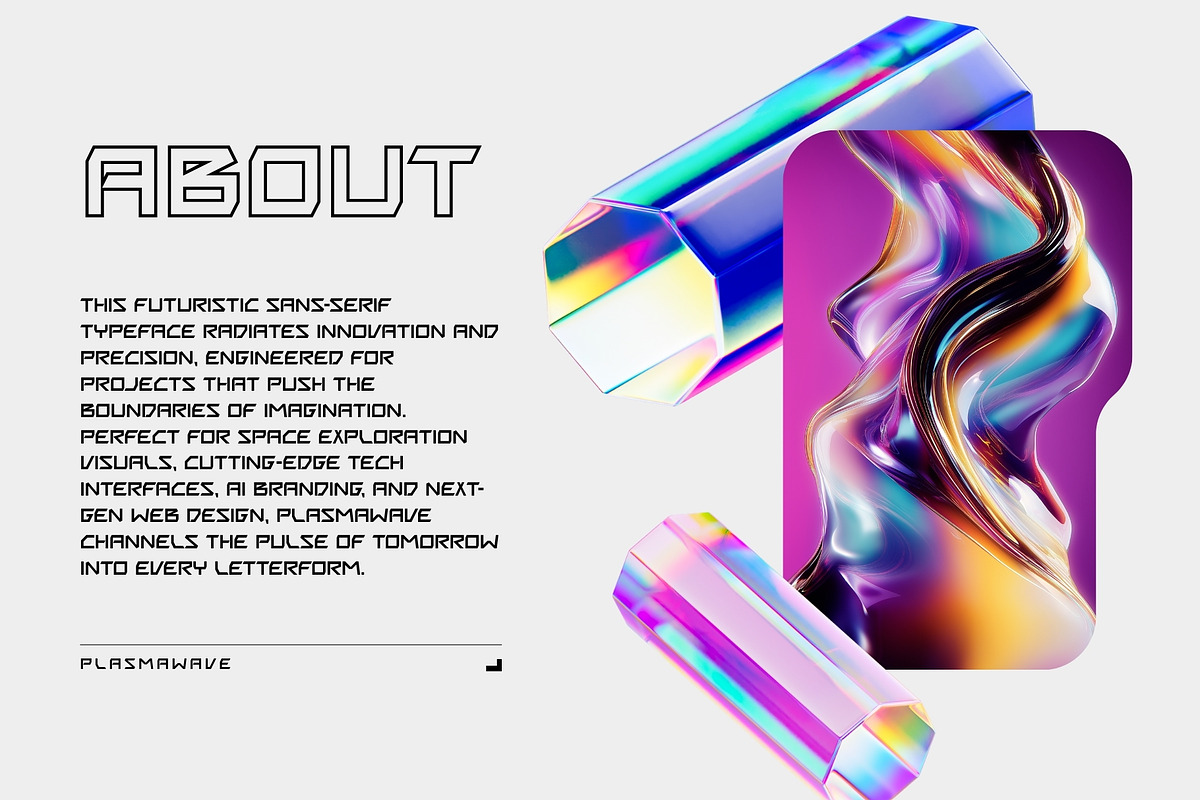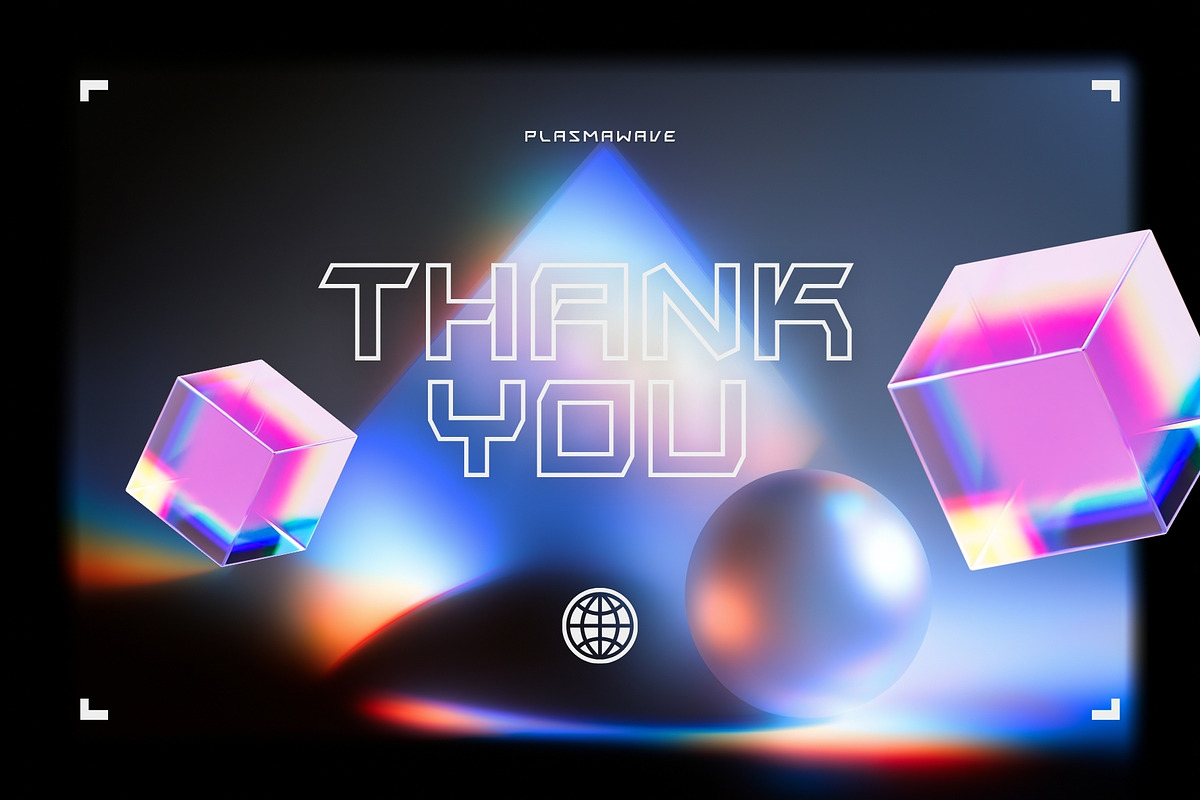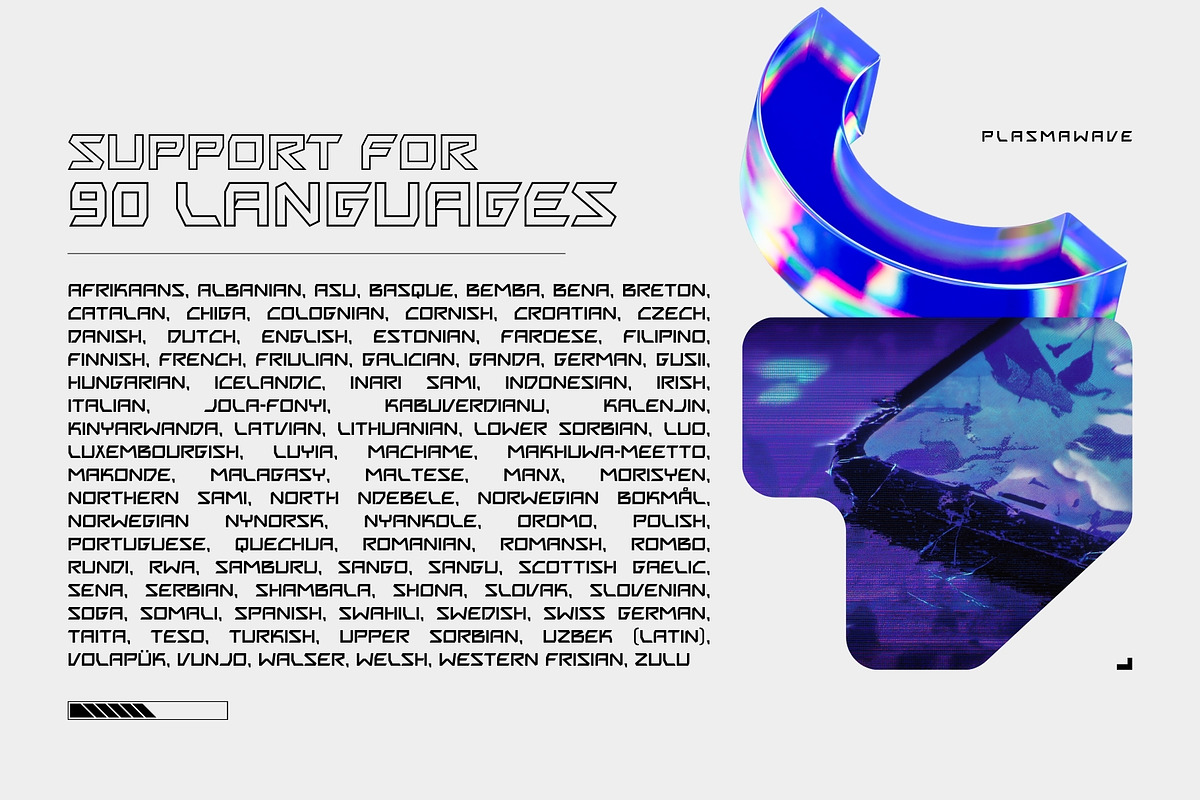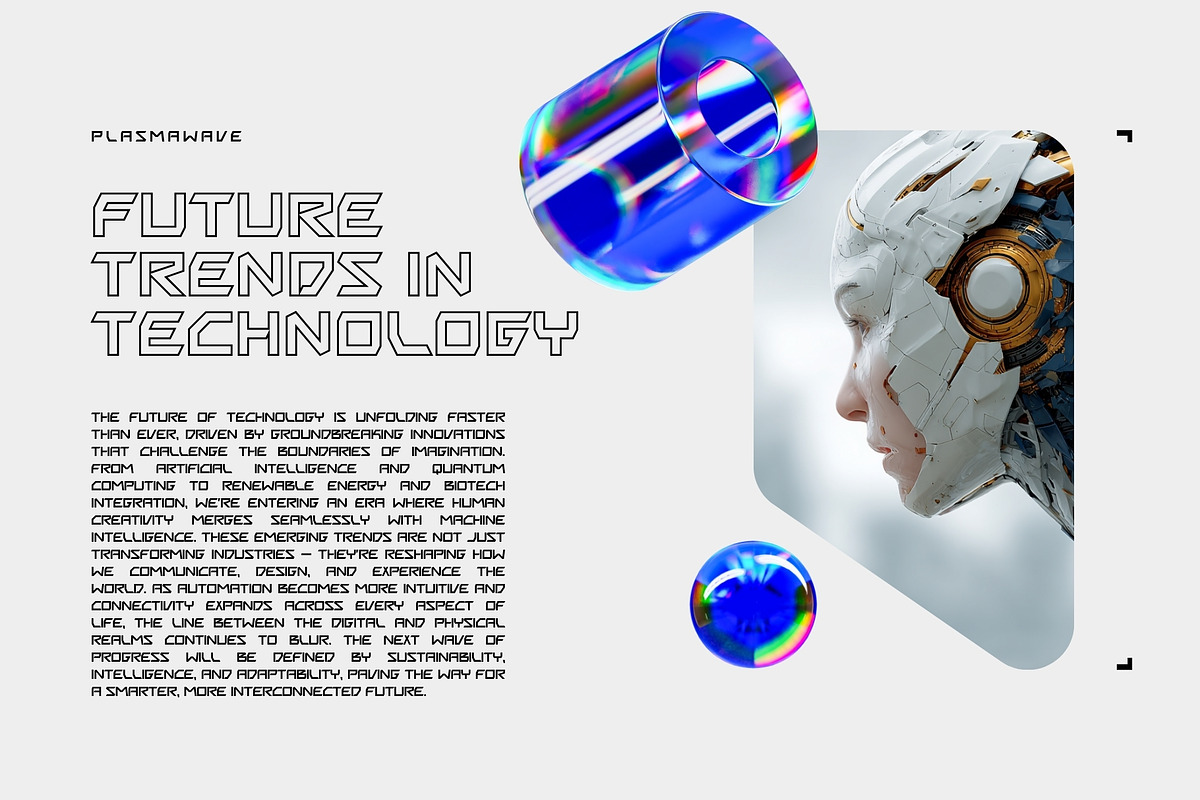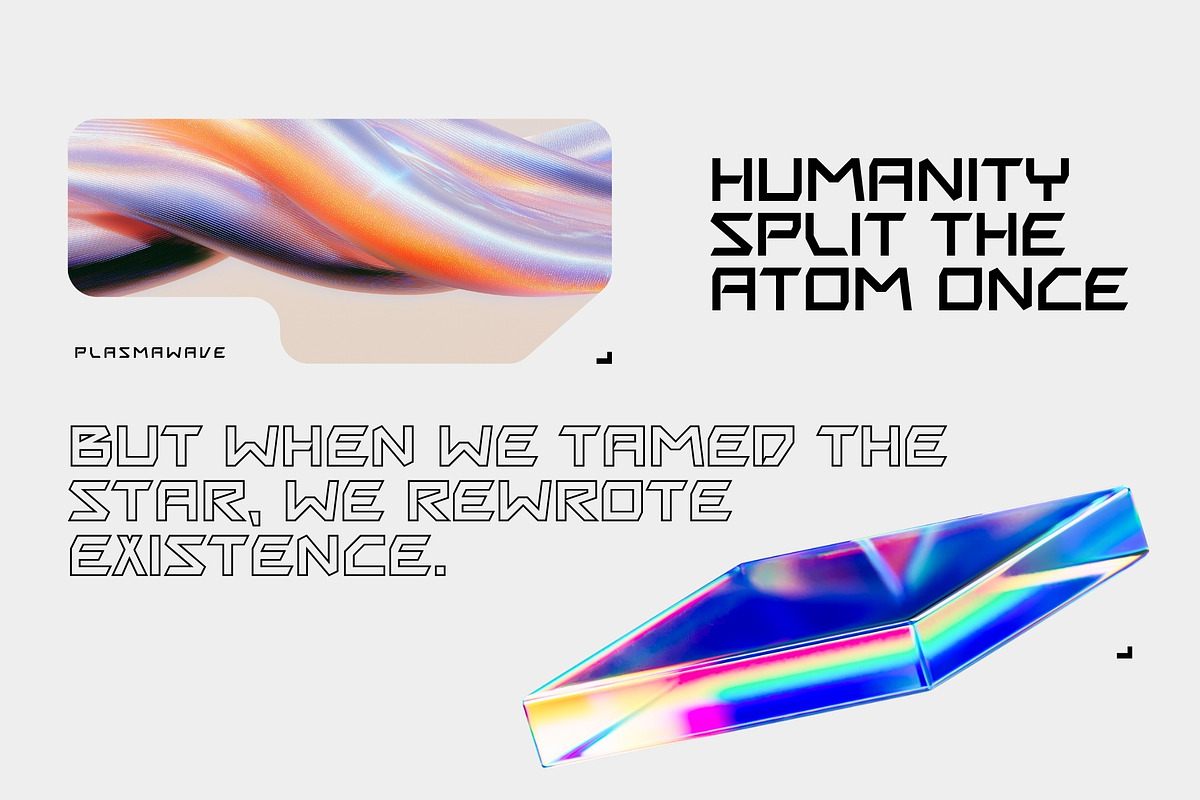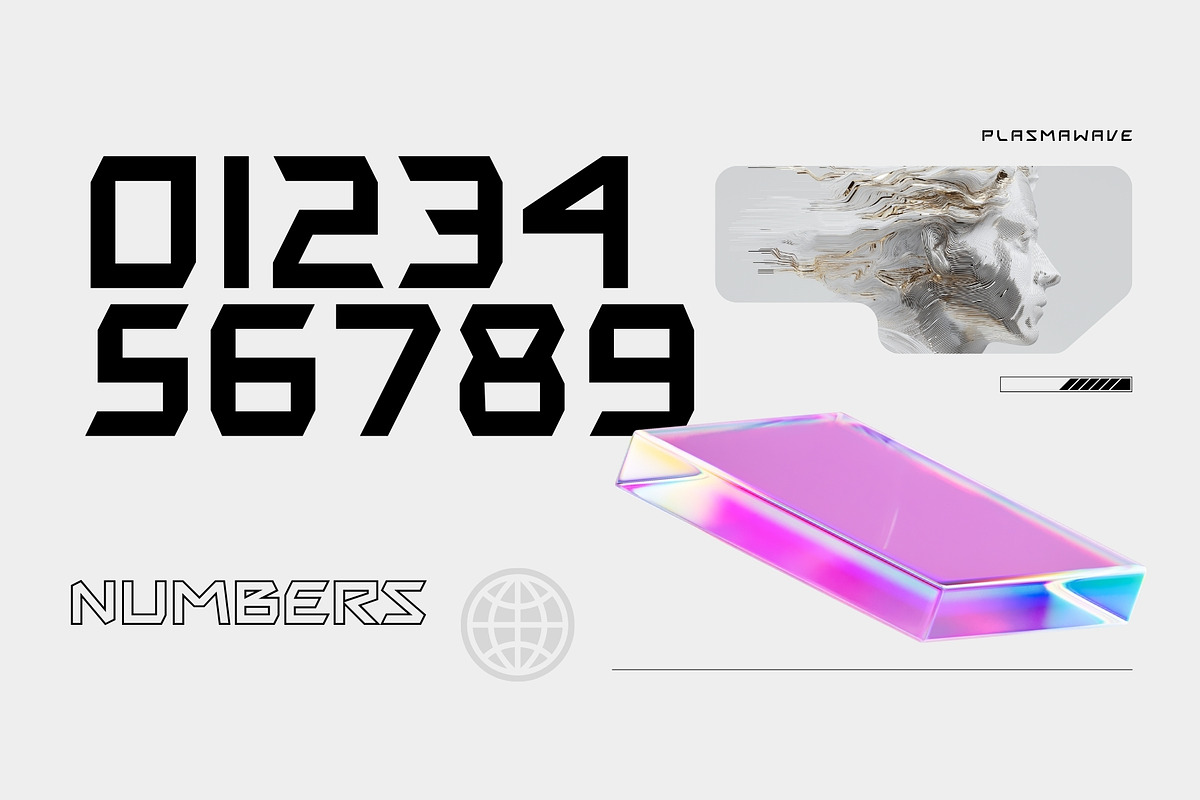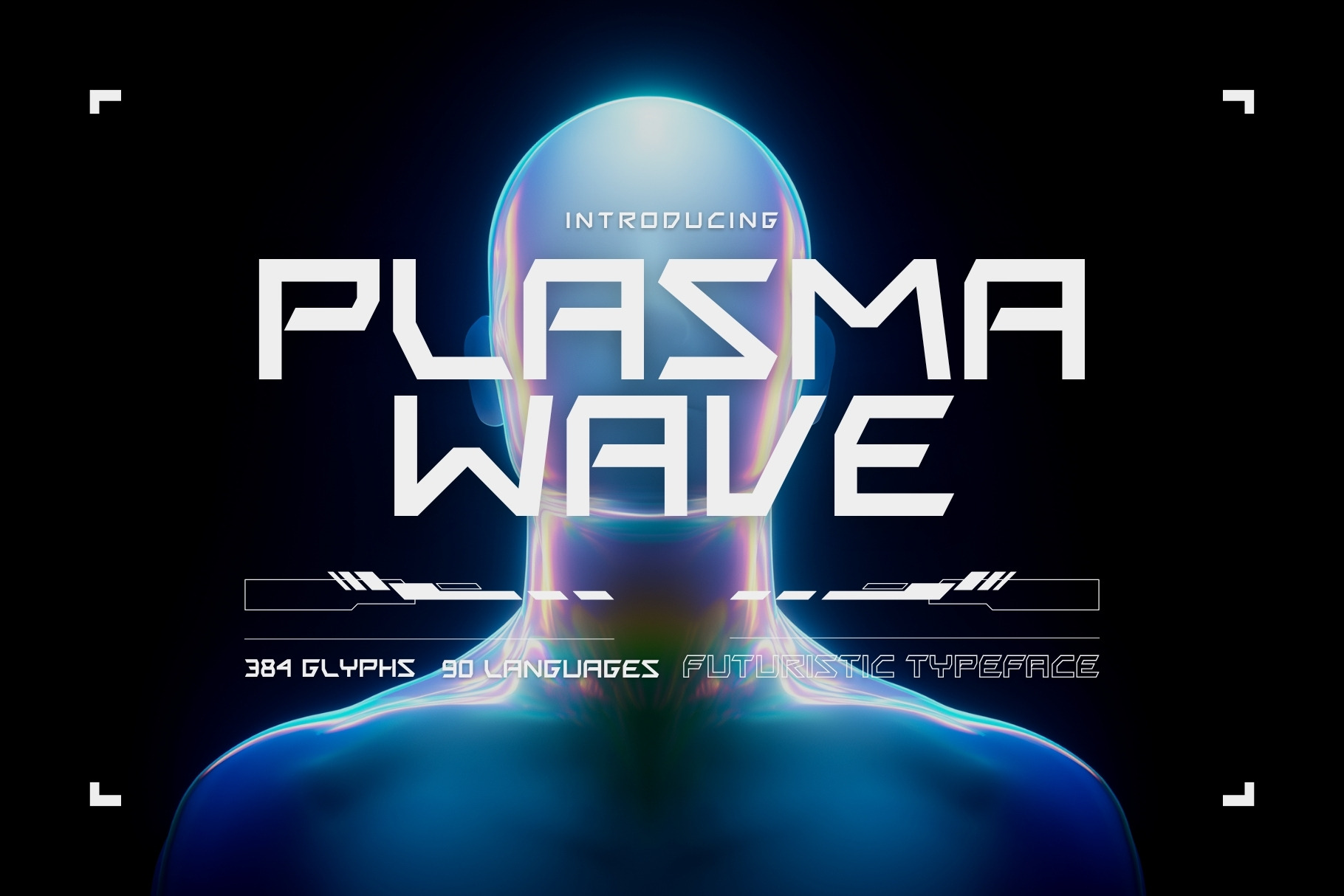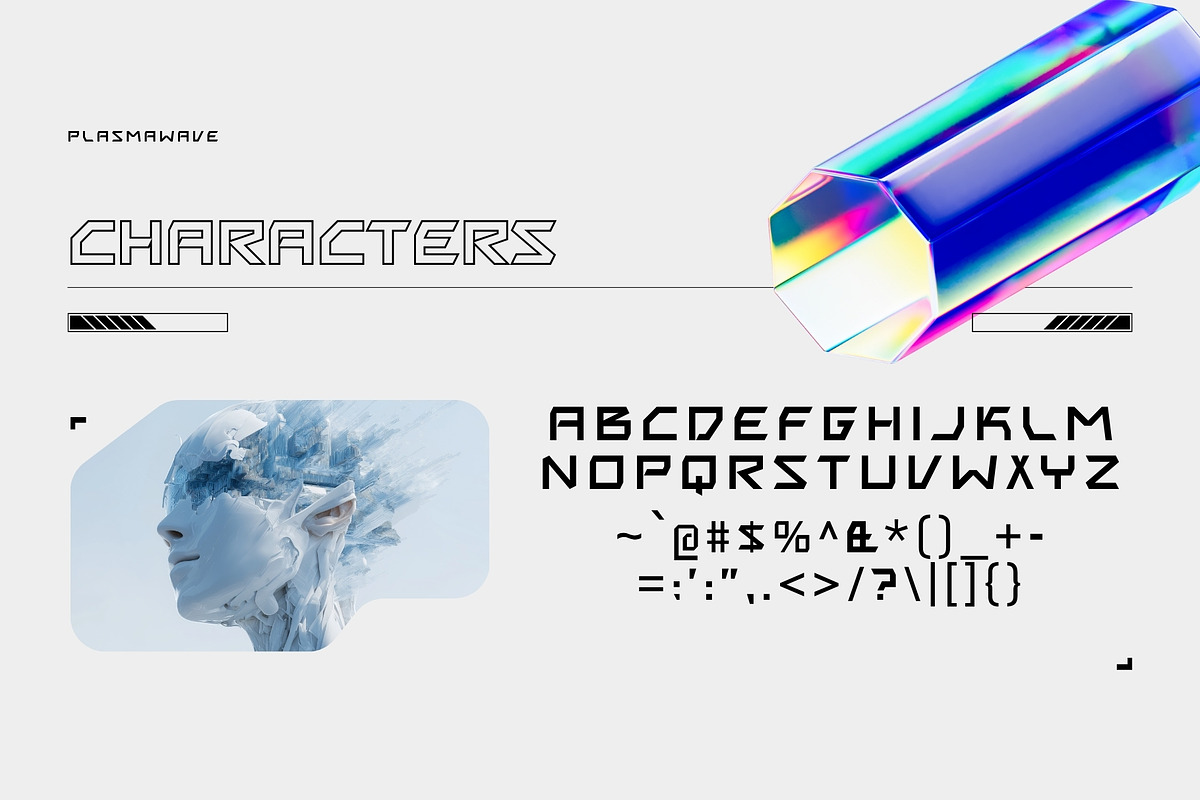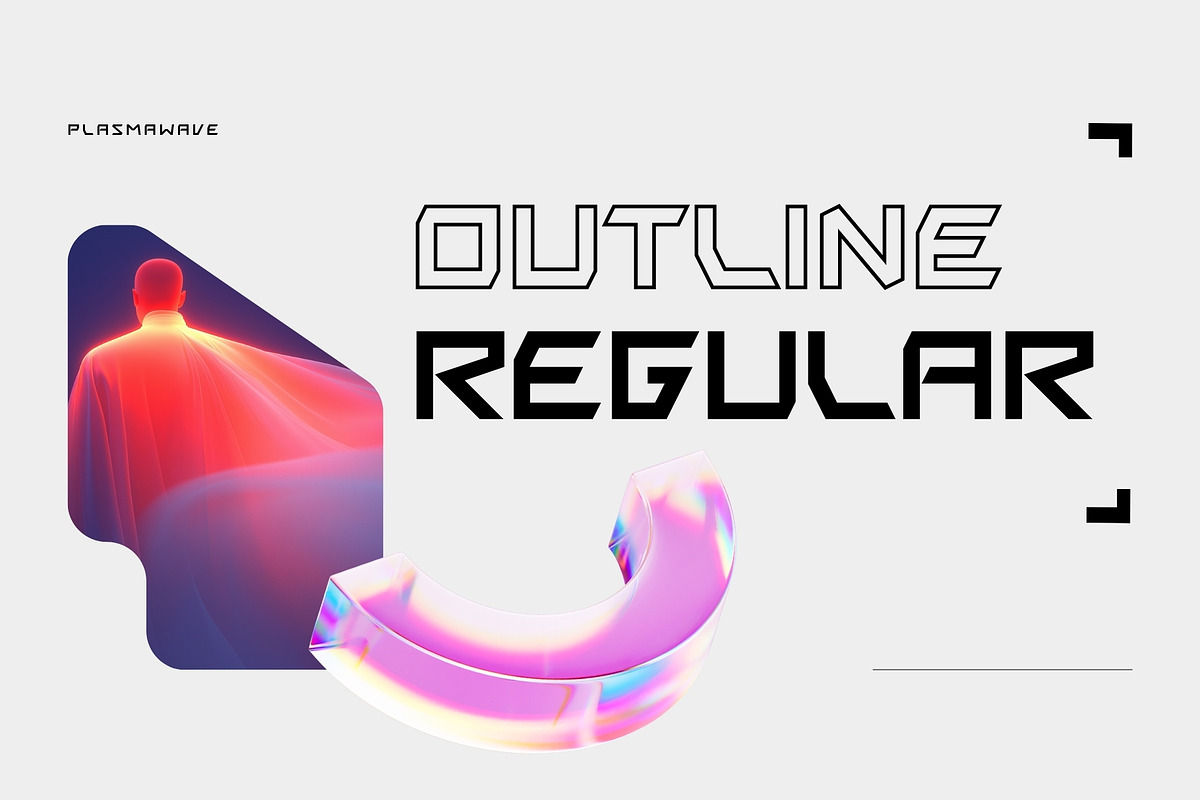
Plasmawave - Futuristic Typeface
This futuristic sans-serif typeface radiates innovation and precision, engineered for projects that push the boundaries of imagination. Perfect for space exploration visuals, cutting-edge tech interfaces, AI branding, and next-gen web design, Plasmawave channels the pulse of tomorrow into every letterform.
With Regular and Outline styles, this all-caps font offers flexibility and impact—whether you’re crafting sleek headlines, dynamic logos, or immersive sci-fi aesthetics. Featuring 384 meticulously designed glyphs and support for 90 languages, Plasmawave ensures your message resonates across borders and galaxies alike.
Step into the future of typography. Step into Plasmawave.